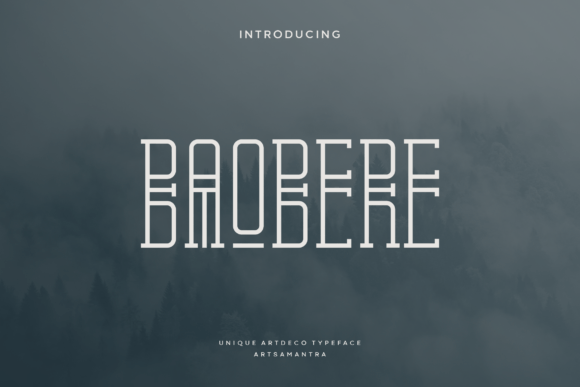
Introducing Baobere Font: A Unique and Elegant Typeface Inspired by Native and Nordic Tribes
In the world of typography, fonts play a crucial role in conveying the tone and personality of a brand or design. With the vast array of fonts available, it can be challenging to find one that stands out from the crowd. However, if you’re looking for a font that exudes elegance, minimalism, and a touch of uniqueness, look no further than Baobere Font.
What is Baobere Font?
Baobere Font is a decorative typeface that draws inspiration from native and Nordic tribes. Its design is characterized by minimalist and feminine shapes, making it an elegant addition to any design project. The font’s unique blend of simplicity and sophistication makes it perfect for a wide range of applications, from logos and brochures to magazines and other design materials.
The Inspiration Behind Baobere Font
The Baobere Font is inspired by the rich cultural heritage of native and Nordic tribes. These tribes have a long history of creating stunning works of art, from intricate patterns and designs to bold typography. The font’s creator sought to capture the essence of this cultural heritage and translate it into a modern, elegant typeface.
Key Features of Baobere Font
So, what makes Baobere Font so special? Here are some of its key features:
- Minimalist and Feminine Shape: Baobere Font boasts a minimalist and feminine design, making it perfect for designs that require a touch of elegance.
- Unique and Decorative: The font’s unique blend of simplicity and sophistication makes it a standout in any design project.
- Highly Versatile: Baobere Font is suitable for a wide range of applications, from logos and brochures to magazines and other design materials.
Use Cases for Baobere Font
Baobere Font is an incredibly versatile typeface that can be used in a variety of design projects. Here are some use cases where Baobere Font truly shines:
- Logo Design: Baobere Font is perfect for creating unique and memorable logos that stand out from the crowd.
- Brochure Design: The font’s elegant design makes it an excellent choice for brochure design, adding a touch of sophistication to any marketing material.
- Magazine Design: Baobere Font can add a unique and decorative touch to magazine designs, making them more engaging and visually appealing.
- Branding and Identity: The font’s unique design makes it an excellent choice for branding and identity projects, helping to create a distinctive and recognizable brand image.
Benefits of Using Baobere Font
So, why should you choose Baobere Font for your design project? Here are some benefits of using this elegant typeface:
- Stand Out from the Crowd: Baobere Font’s unique design ensures that your design project stands out from the crowd and grabs the attention of your audience.
- Elegance and Sophistication: The font’s elegant design adds a touch of sophistication to any design project, making it perfect for high-end brands and luxury products.
- Flexibility: Baobere Font is highly versatile, making it suitable for a wide range of design applications.
In conclusion, Baobere Font is a unique and elegant typeface that can add a touch of sophistication and elegance to any design project. Its minimalist and feminine design makes it perfect for a wide range of applications, from logos and brochures to magazines and other design materials. With its versatility, flexibility, and ease of use, Baobere Font is an excellent choice for designers looking to create stunning and memorable designs.